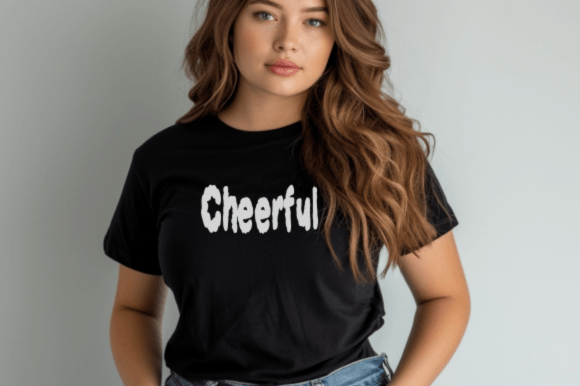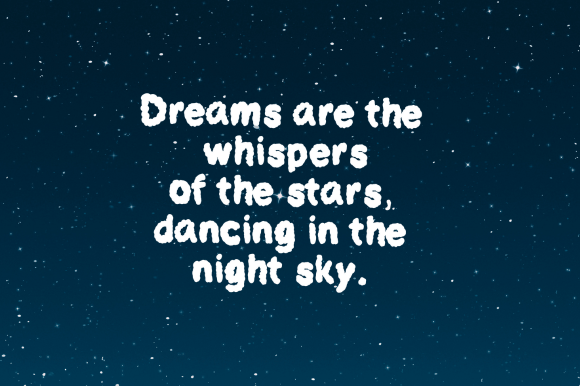
Dreamsical Nolia Font Font – Free Download
Introduction to Dreamsical Nolia Font Font
Fonts play a crucial role in design, and the Dreamsical Nolia Font font is a typeface that brings both character and versatility to any project. Whether you’re working on a branding project, a website, or a print design, the Dreamsical Nolia Font font offers a unique style that can elevate your work.
Immerse yourself in the whimsical charm of Dreamsical, an enchanting handwritten font inspired by the ethereal beauty of clouds.
Crafters who yearn to infuse their creations with a touch of the unique will find Dreamsical to be the perfect font, elevating each project to new, dreamy heights The whimsy of its design captures the imagination, beckoning your creativity to soar – just like wisps of clouds on a blue skyline.
Key Features of Dreamsical Nolia Font Font
Why Choose Dreamsical Nolia Font Font?
The Dreamsical Nolia Font font is more than just a typeface – it’s a design tool that helps you communicate your message with style and clarity. Its unique character set and versatile design make it suitable for a wide range of applications, from elegant invitations to bold headlines.
With its carefully crafted letterforms and balanced proportions, the Dreamsical Nolia Font font ensures readability and visual appeal across all mediums.
What makes Dreamsical Nolia Font font special?
The Dreamsical Nolia Font font stands out with its unique design, exceptional readability, and versatility across various design applications.